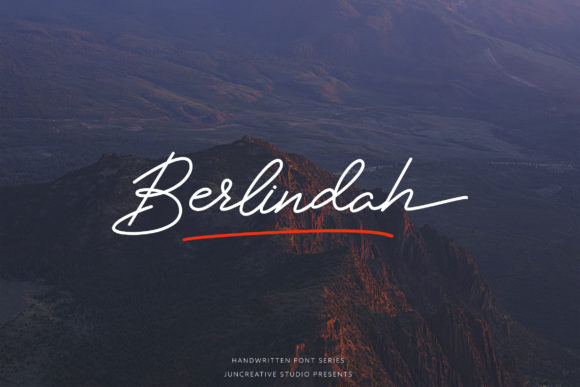
Introducing Berlindah Font – a stylish and charming handwritten signature script that will enchant your designs with its effortless beauty. Experience the luxury of owning this one-of-a-kind font, meticulously crafted by Juncreative to turn your creative dreams into reality.
With Berlindah Font, your creations will exude a touch of romance and sophistication. Its seemingly effortless flow captures the essence of a genuine signature, adding a personal touch to every project. From heartfelt letters to captivating branding, Berlindah Font will elevate your work to new heights.
Whether you're a passionate crafter or an ambitious designer, the possibilities with Berlindah Font are endless. Its versatility knows no bounds, allowing you to express yourself with confidence and style. Transform your invitations into timeless keepsakes, add a touch of elegance to your social media posts, or create breathtaking designs that leave a lasting impression.
Indulge in the elegance of Berlindah Font today and unlock a world of creative possibilities. Let your imagination soar and create masterpieces that will captivate and enchant. Your designs will shine with a unique charm, evoking admiration and making a statement that speaks volumes.